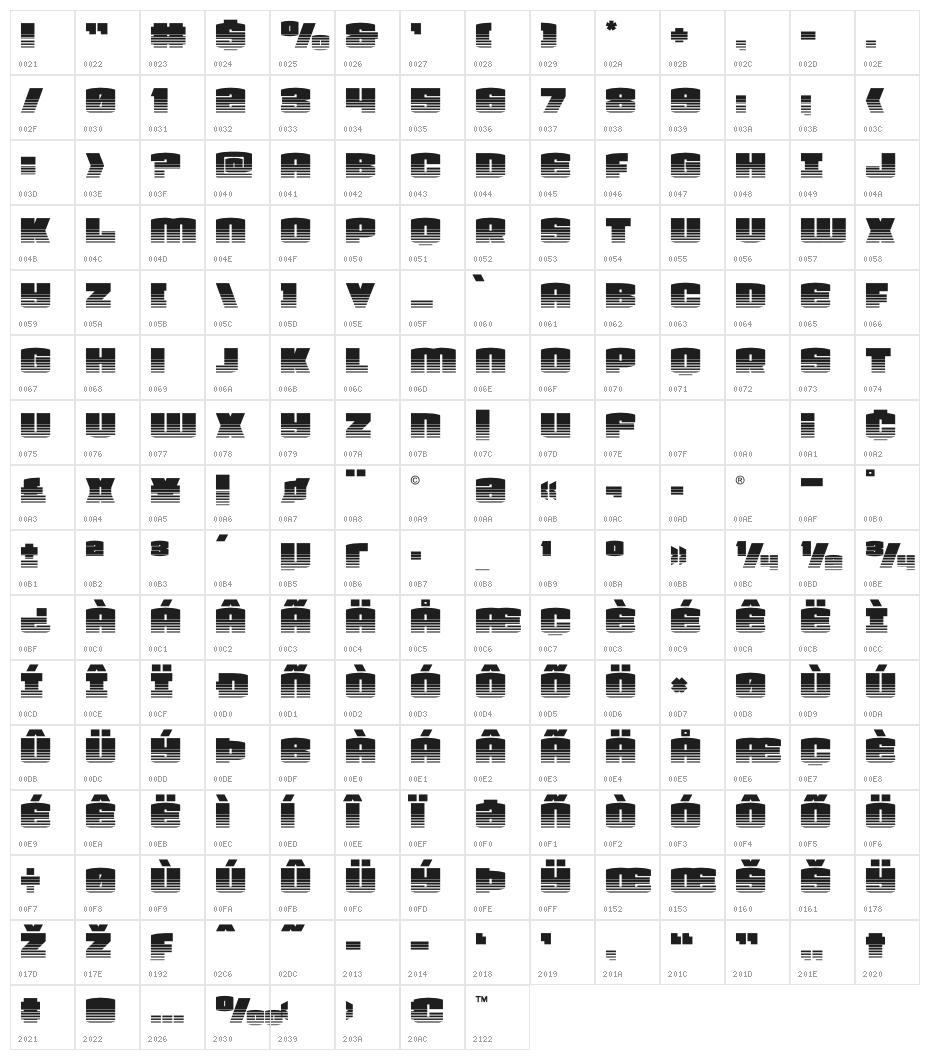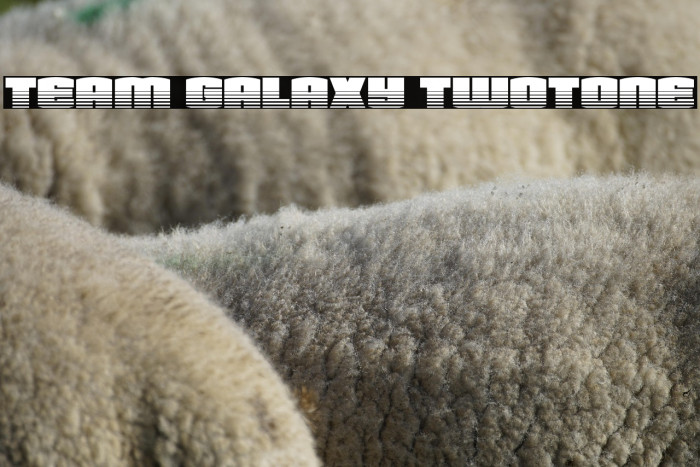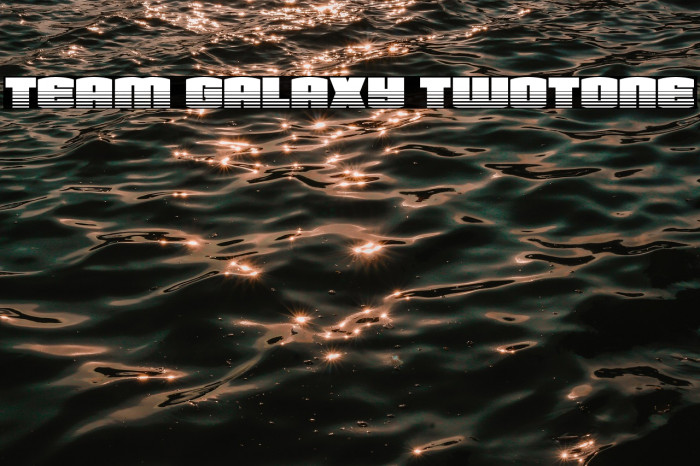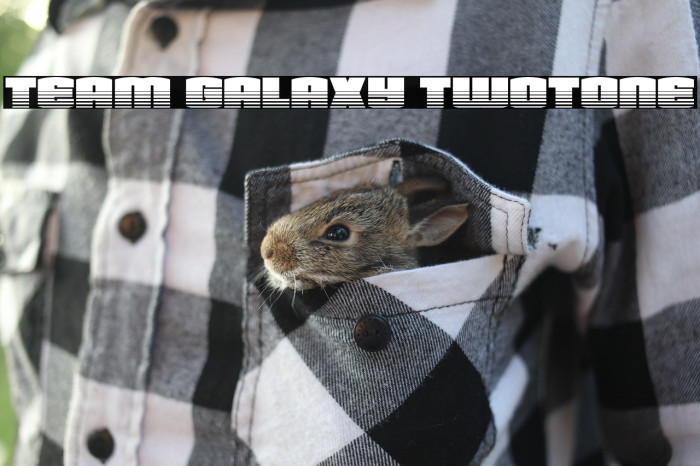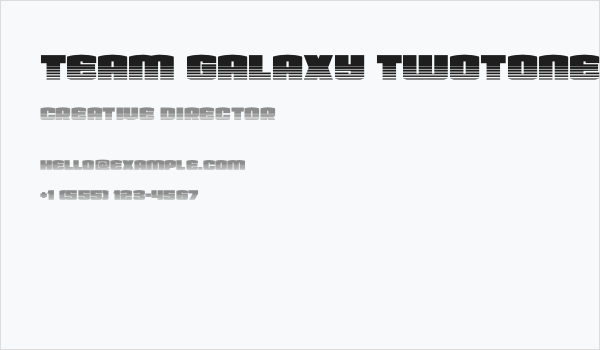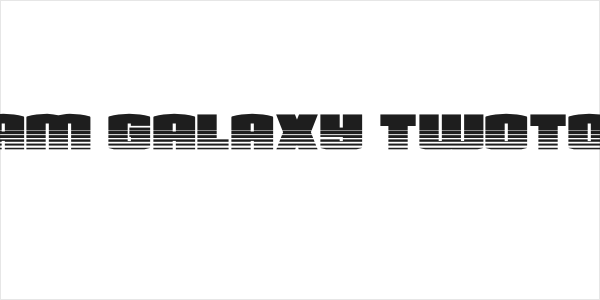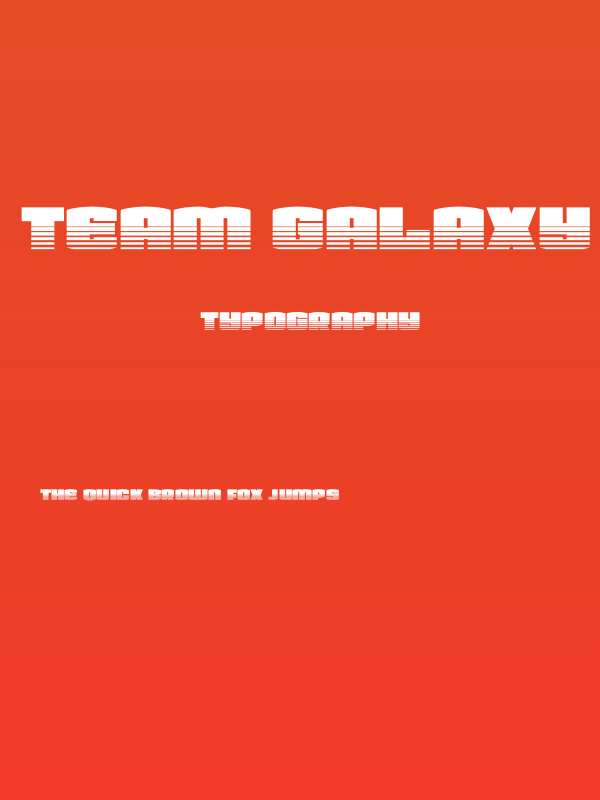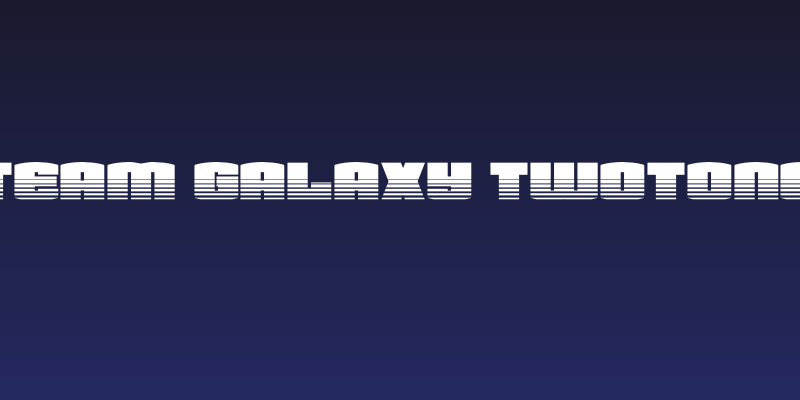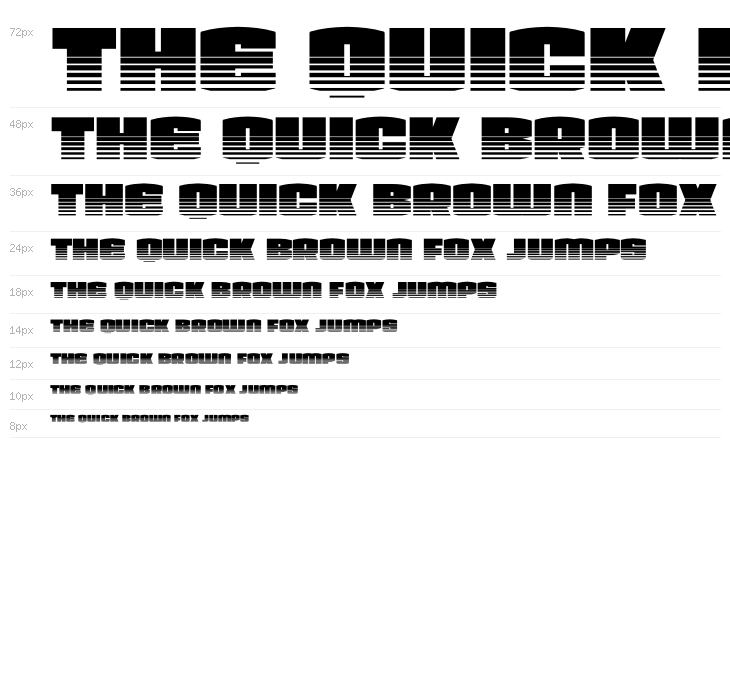
Team Galaxy Twotone Font
Team Galaxy Twotone Description
This font features a bold, futuristic design with a distinctive two-tone effect. Each character is composed of solid black upper sections and striped lower sections, creating a dynamic and eye-catching appearance. The uppercase and lowercase letters maintain a consistent width, contributing to a uniform and cohesive look. The numbers and special characters follow the same stylistic approach, ensuring versatility across various applications. The font's geometric shapes and sharp edges give it a modern and technological feel, making it suitable for projects that require a strong visual impact.